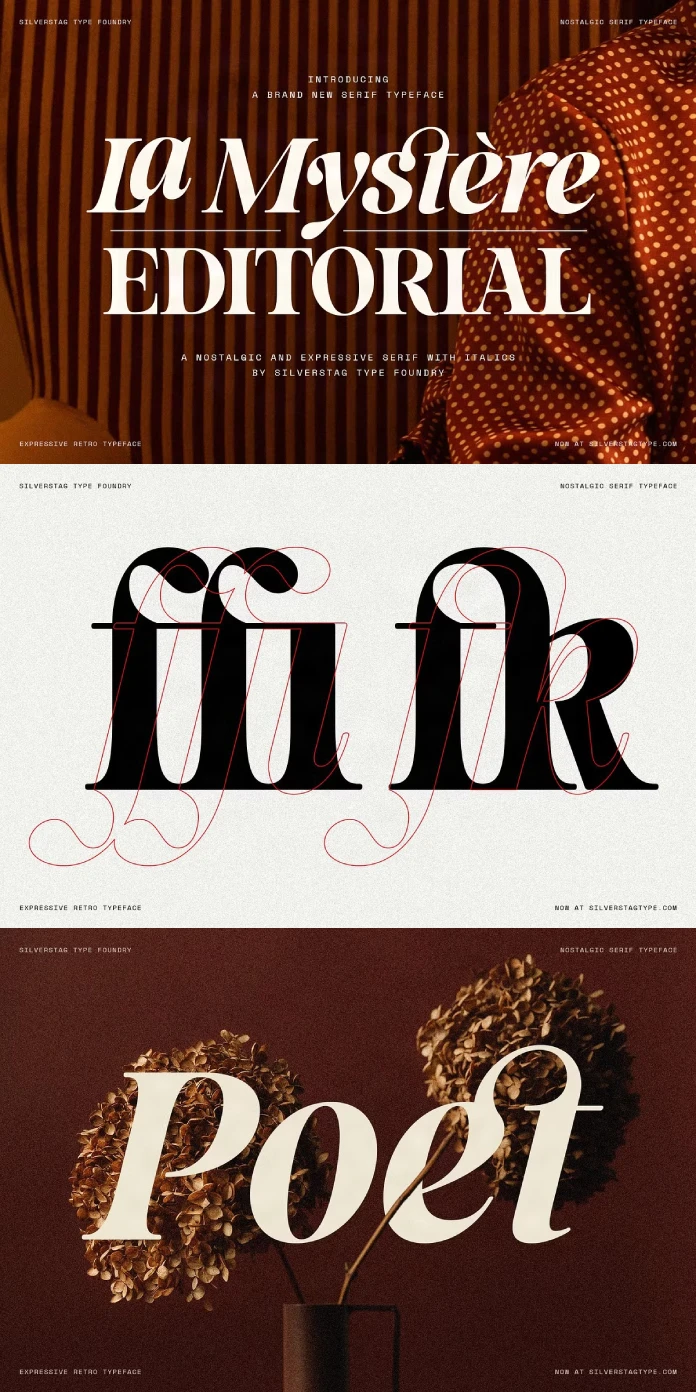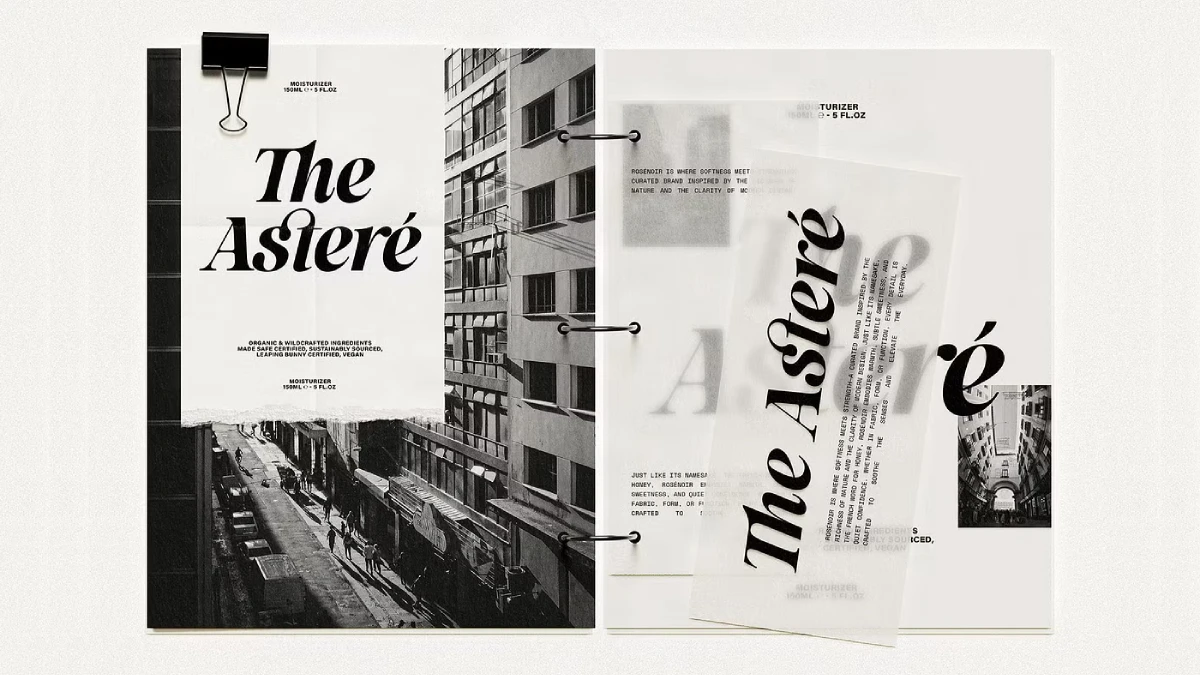
Use the SLTF La Mystère Font to Command Attention with Quiet Confidence
Designers and brands are consequently seeking typefaces that convey emotion and tell a story. This turn towards more expressive typography makes the introduction of the SLTF La Mystere font by SilverStag Type Foundry both timely and relevant. This is not just another serif. Instead, it is a meticulously crafted tool for designers aiming to create refined, editorial-driven work that feels both classic and contemporary.
The SLTF La Mystere font uniquely balances classical beauty with modern editorial elegance. It avoids shouting for attention. Rather, it commands it through quiet confidence. This makes it a compelling choice for projects that require a sophisticated and timeless voice.
The Resurgence of Expressive Serifs
For years, the design world favored the clean, geometric lines of sans-serif fonts for their perceived neutrality and digital-friendliness. However, a collective desire for more authentic and personable brand identities is fueling a serif renaissance. Typography in 2025 is trending towards organic, handcrafted details and expressive forms that create an emotional connection.
This is precisely where the SLTF La Mystere font finds its power. It directly answers the call for typefaces with soul. Its design moves beyond mere readability to inject a distinct personality into the text. For brands in luxury, fashion, and publishing, this is not a trivial detail. Indeed, it is a fundamental component of their visual language, allowing them to communicate a sense of heritage and quality.
A Deeper Look at the SLTF La Mystere Font
The true strength of the SLTF La Mystere font lies in its thoughtful and nuanced design. Crafted by the Spain-based SilverStag Type Foundry, which is known for fonts that are personal and full of character, La Mystère is a testament to this philosophy.
Design Philosophy and Key Features
La Mystère is a high-contrast serif defined by its graceful, expressive curves, soft edges, and beautifully sculpted serifs. These elements combine to create a typeface that feels both bold and gentle. Furthermore, it blends classical inspiration with a modern flair, resulting in a voice that is confident and stylish.
Key Features Include:
- Two distinct styles: The font currently includes Regular and Italic variants, each rich with personality.
- High-contrast design: The variation between thick and thin strokes provides an elegant rhythm, ideal for headlines and display text.
- Soft and rounded details: Unlike harsher serifs, La Mystère’s soft curves make it approachable and warm.
- Extensive language support: With support for more than 100 languages, its usability is genuinely extensive.
The Perfect Application for the SLTF La Mystere Font
This font is exceptionally versatile, though it truly excels in contexts that demand elegance and sophistication. Think of it as the perfect typeface for:
- Luxury Branding: It can bestow a sense of prestige and authority on fashion and beauty brands.
- Editorial Layouts: It is ideal for magazine headlines, book covers, and high-end publications that need to capture a reader’s attention.
- High-End Packaging: Its refined character can elevate product packaging, making it feel more premium.
- Sophisticated Social Media: For brands cultivating a stylish and curated online presence, this font adds a touch of class to graphics.
Putting the SLTF La Mystere Font into Practice
To maximize the impact of the SLTF La Mystere font, strategic implementation is key. Its expressive nature requires careful consideration of pairing and hierarchy to create a harmonious design.
Font Pairing and Hierarchy
Creating contrast is a fundamental principle of good typography. Because La Mystère is so distinctive, it pairs beautifully with a clean, simple sans-serif for body text. Therefore, consider pairings like:
- Montserrat: A geometric sans-serif that provides a modern, clean counterpoint.
- Raleway: Another versatile sans-serif whose elegant simplicity complements La Mystère without competing.
- Roboto: A functional and highly legible choice for body copy that allows La Mystère to shine in headlines.
By using the SLTF La Mystere font for headings and a neutral sans-serif for paragraphs, you can establish a clear visual hierarchy that is both beautiful and easy to read.
The Strategic Investment: An Early Adopter’s Advantage
SilverStag Type Foundry has announced that Version 1.0 of the SLTF La Mystere font is just the beginning. A significant upgrade, Version 2.0, is slated for release at the end of September. This new version will expand the family to include nine weights for both the Regular and Italic styles.
Crucially, this expanded family will come with a significantly higher price point. However, early adopters who purchase Version 1.0 will receive all future upgrades for free. This presents a unique and strategic opportunity for designers. Investing now provides immediate access to a stunning typeface while guaranteeing a much more robust and versatile font family in the near future at no additional cost.
As you consider your next project, ask yourself what voice you need. If the answer is one of elegance, confidence, and timeless style, then the SLTF La Mystere font deserves your serious consideration. How might you use its sculpted serifs and soft curves to tell your own story?